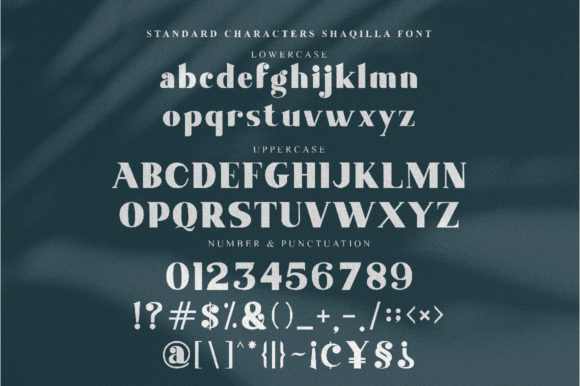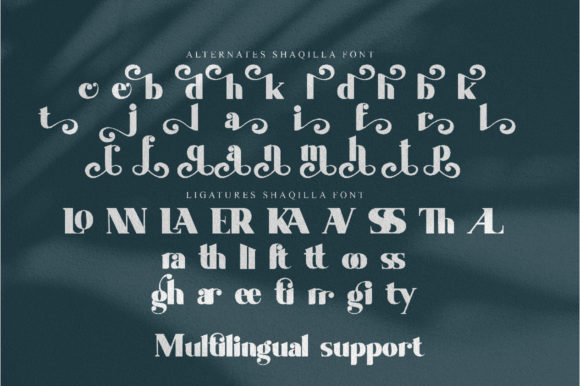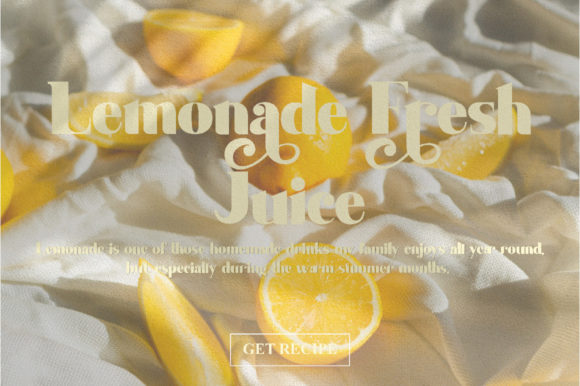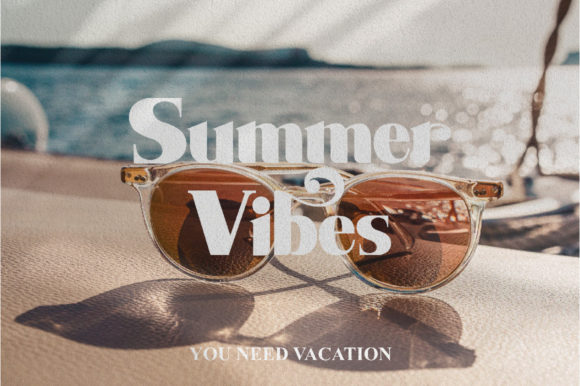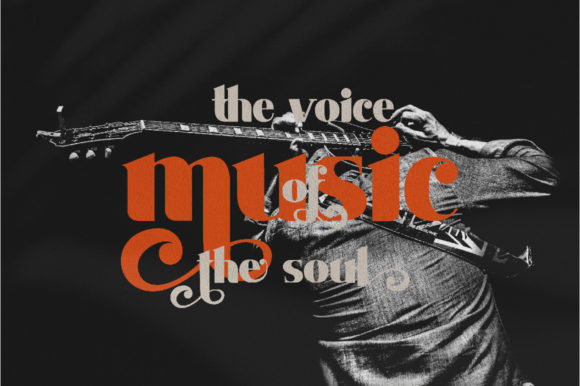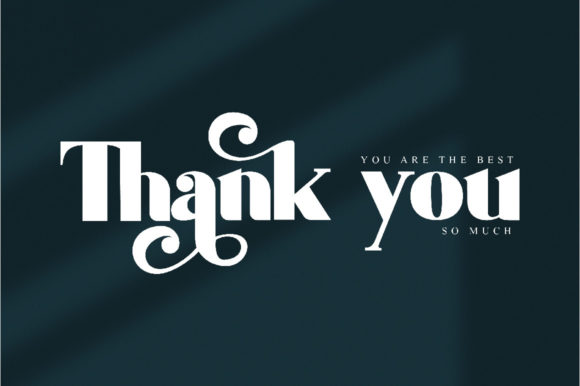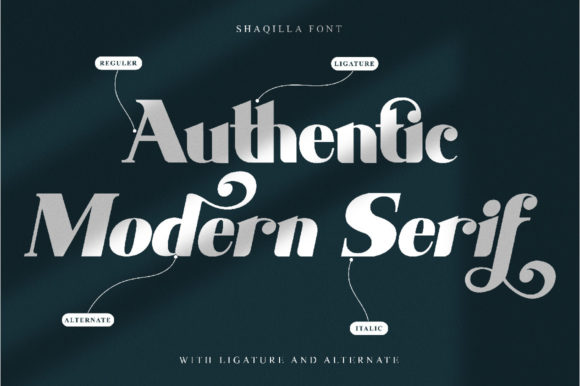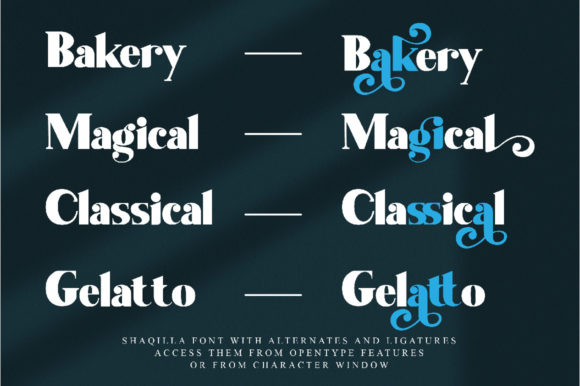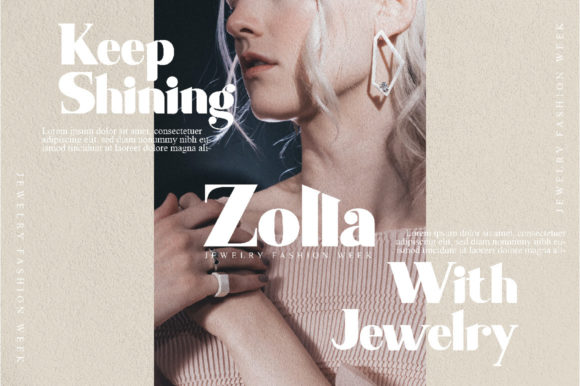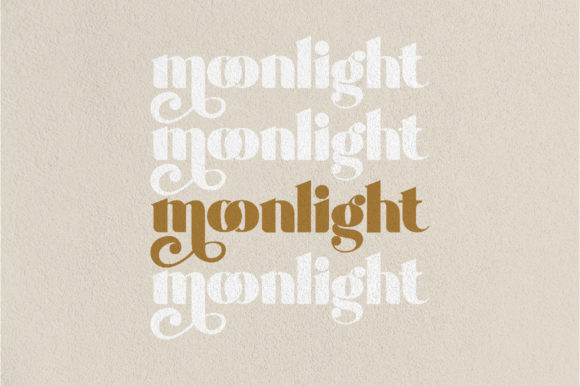
Shaqilla Font
SHAQILLA FONT SPECIMEN
Introducing Shaqilla, a stylish slab serif font that exudes elegance and sophistication. With its versatility and charm, Shaqilla is the perfect choice for a wide range of design projects. From branding and wedding invitations to Christmas cards, logos, product packaging, quotes, label posters, and more, Shaqilla adds a touch of style and creativity to your most bold and imaginative ideas.
Shaqilla’s stylish slab serif design sets it apart as a font that combines contemporary aesthetics with a timeless appeal. Its clean lines and refined letterforms create a sense of elegance and professionalism, making it a versatile font for various design purposes.
Branding materials come to life with the inclusion of Shaqilla. Whether you’re creating a logo, designing business cards, or developing a visual identity for your brand, this font adds a touch of sophistication and style. Shaqilla’s versatility allows it to adapt to different industries and design concepts, ensuring that your brand stands out and makes a memorable impression.
Wedding invitations become truly enchanting with the help of Shaqilla. Its stylish and elegant letterforms create a romantic and refined atmosphere, setting the perfect tone for the celebration. Whether it’s a formal black-tie affair or a more intimate gathering, Shaqilla adds a touch of class and grace to your wedding stationery.
Christmas cards take on a stylish and festive flair with Shaqilla. Its versatility allows it to be used in both traditional and modern holiday designs. Whether you’re sending warm wishes to loved ones or designing holiday promotions, Shaqilla adds a touch of sophistication and joy to your Christmas-themed creations.
Quotes and label posters become visually captivating with the inclusion of Shaqilla. Its stylish and refined letterforms enhance the power of words, creating a visually pleasing composition that grabs attention and conveys your message effectively. Whether it’s for inspirational quotes, typographic prints, or promotional materials, Shaqilla adds a touch of elegance and impact.
The PUA encoding of Shaqilla ensures easy access to all the glyphs and swashes, allowing you to unleash your creativity and personalize your designs with decorative elements effortlessly.
In summary, Shaqilla is a stylish slab serif font that adds elegance and sophistication to your designs. Its suitability for branding, wedding invitations, Christmas cards, logos, product packaging, quotes, label posters, and more makes it a versatile and valuable asset in your design toolkit. Embrace Shaqilla and let it bring a touch of style and creativity to your most creative and bold ideas.